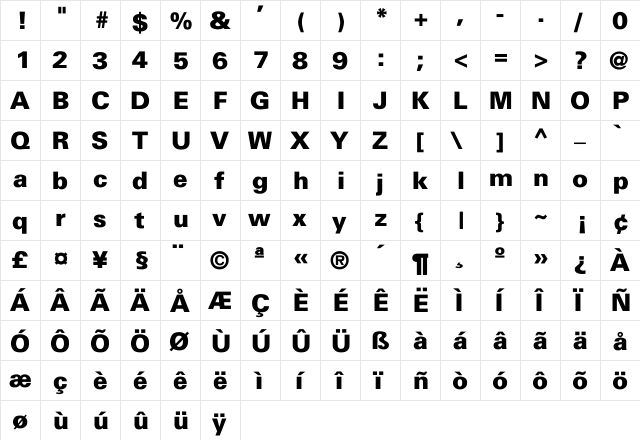
Najinski-Black-Normal Regular Font Preview
Najinski-Black-Normal Regular
Najinski-Black-Normal Regular Font Details
Design Context for Najinski-Black-Normal Typeface
Najinski-Black-Normal takes a measured approach to typography — its balanced proportions and neutral character make it a reliable workhorse for both digital and print work.